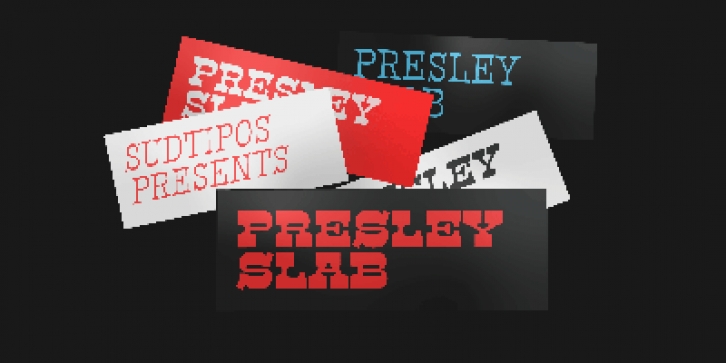
The lightest weight of Presley Slab takes inspiration from a late nineteenth-century type specimen, but what began as a decorative and delicate contrasted serif stirred Alejandro Paul’s imagination to conjure voluptuous reverse contrasted letterforms. These became the heaviest weight of Presley Slab, which nods to the lacquered hairstyles from the birth of rock ’n roll with its idiosyncratic ball terminals. Its playful allure and swagger remains visible in the weights that stand between these two extremes but as the curls loosened, many things happened in the design process including the appearance of swashes and alternates.
Presley Slab’s personality has breadth; it is a fun, confident and contemporary palette of letters that will perfectly perform for any job, from editorial design to branding. The Extra Bold and Black weights are a powerful option at large sizes for use on posters and billboards; the graceful Thin and Extra Light weights are delicate options for packaging design or fashion branding. Despite it conjuring images of mid-century music halls, Presley Slab is also staunchly European in its aesthetic, offering everything from good-humour to elegance with its unique touches.